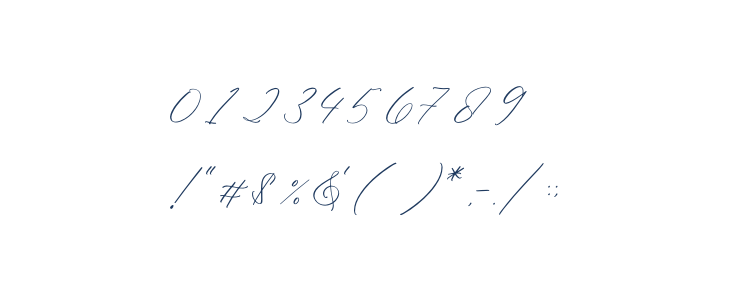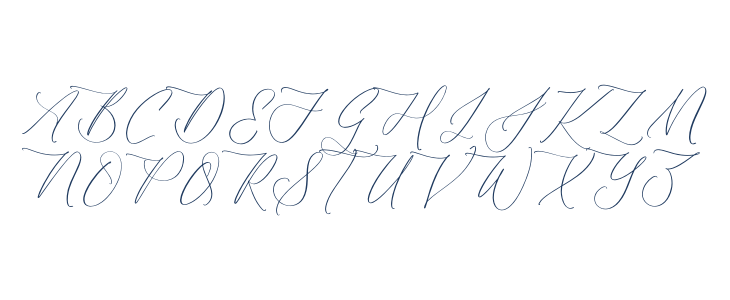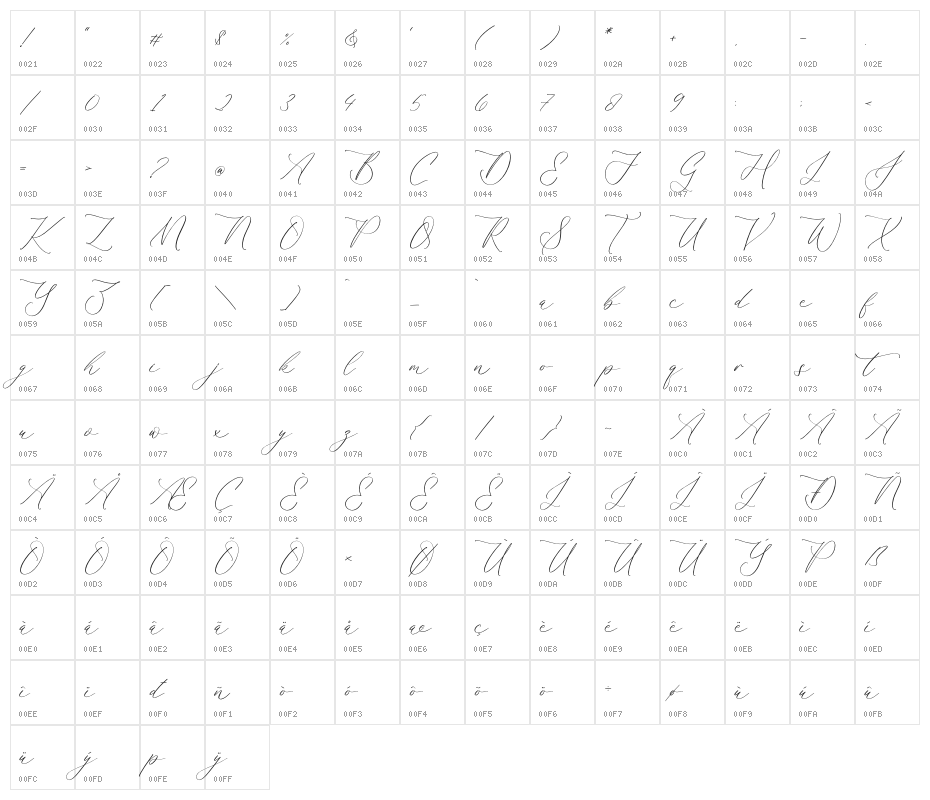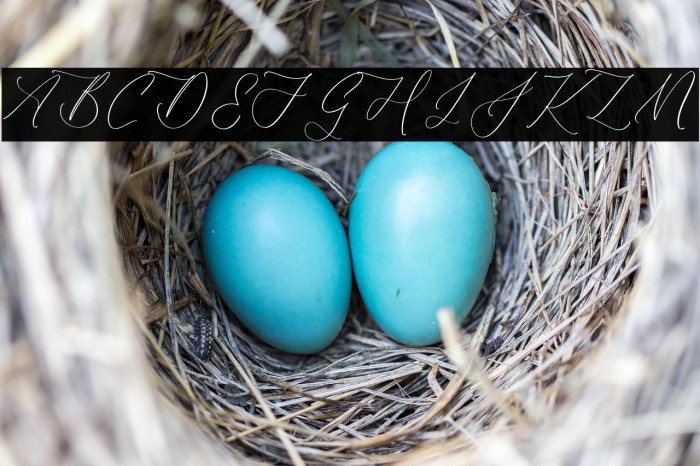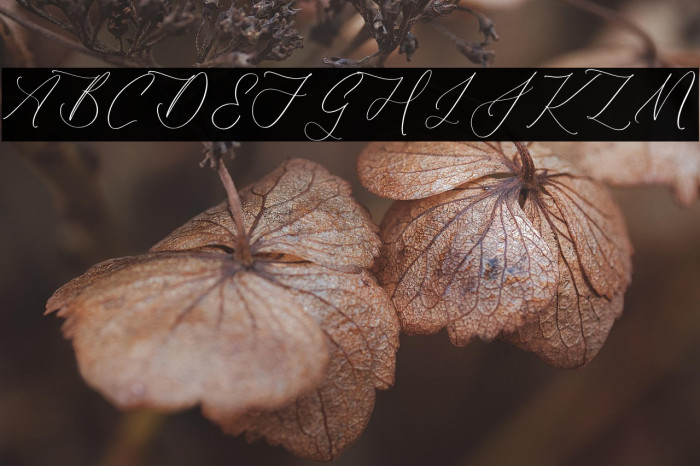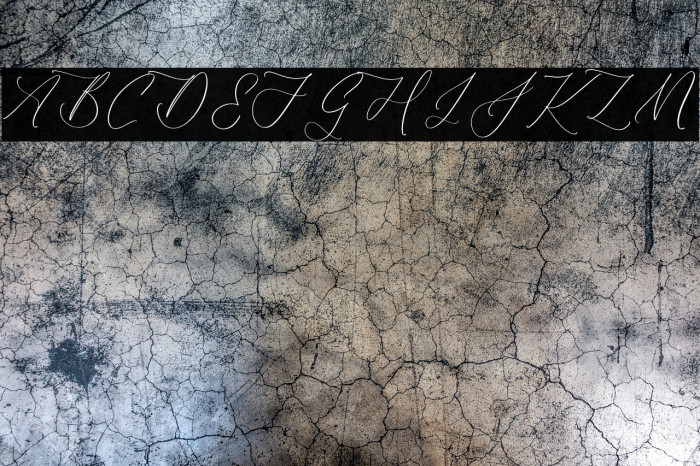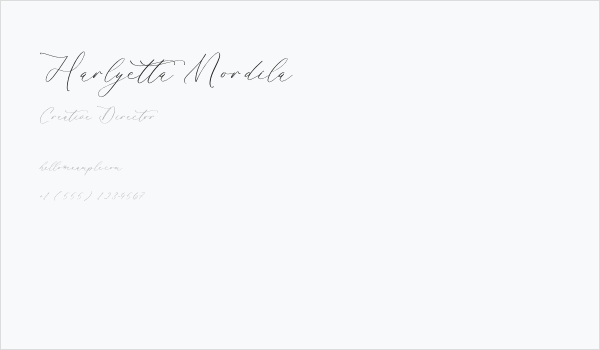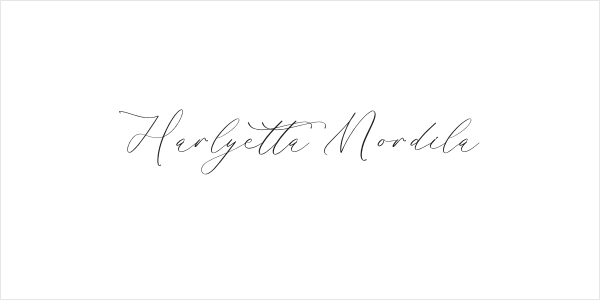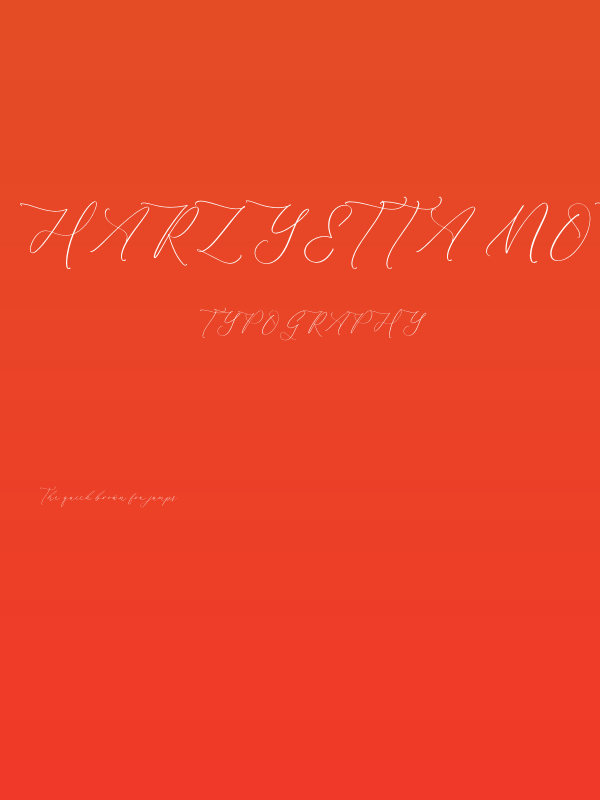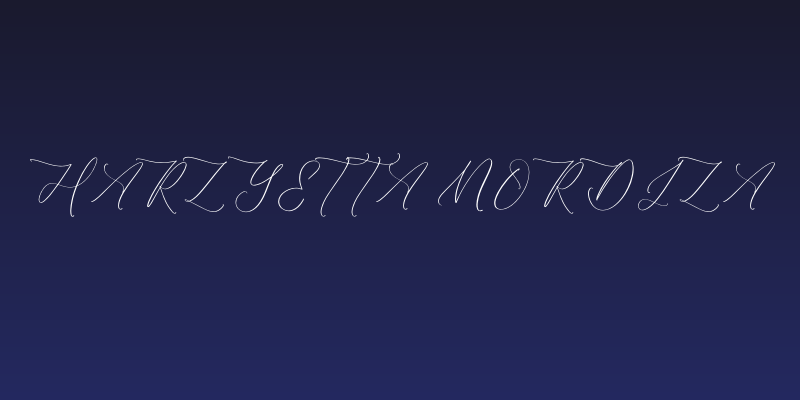
Harlyetta Mordila Font
Harlyetta Mordila Description
Elegant, flowing script font with delicate, thin strokes and high contrast, mimicking expressive, modern calligraphy. The characters are connected and feature long, sweeping ascenders and descenders, with a handwritten, artistic flair.
| Overall Style | Modern, Decorative, Elegant |
| Use Case | Logos, Invitations, Headlines, Decorative text |
| Proposed Projects | Wedding invitations, branding, luxury packaging, greeting cards, personal signatures, event posters. |